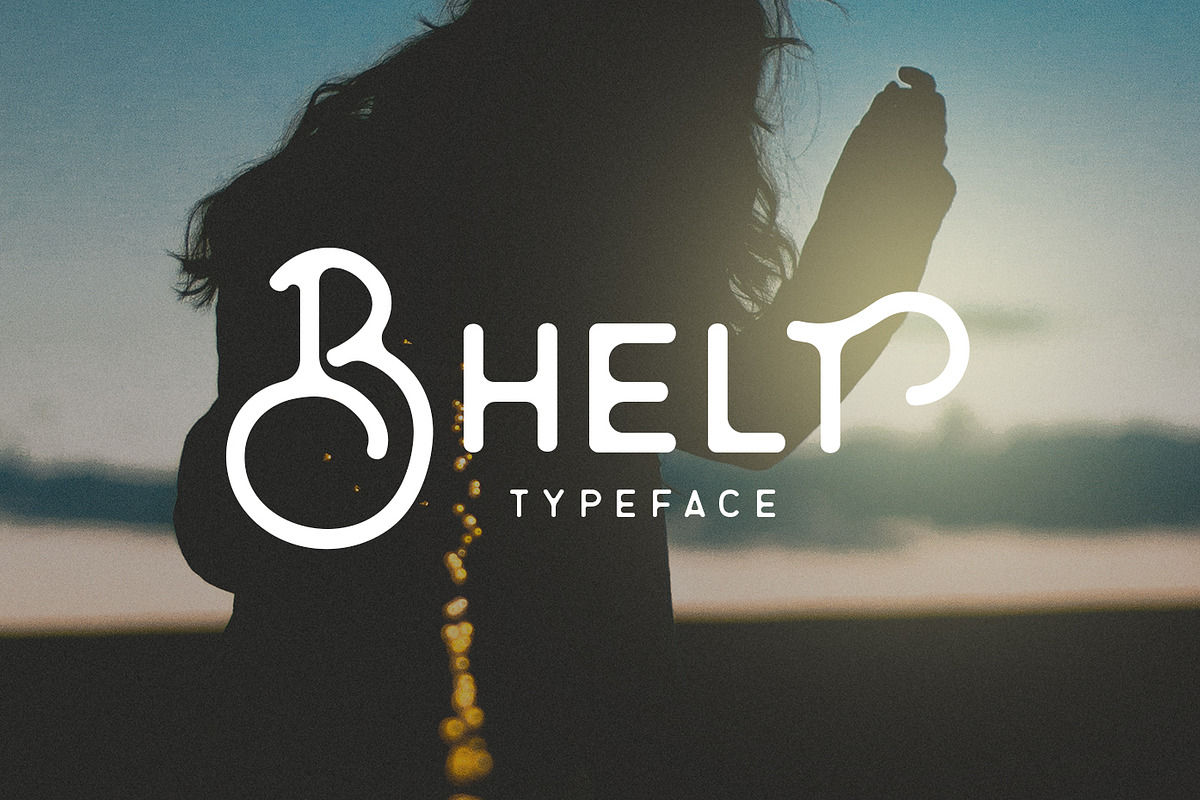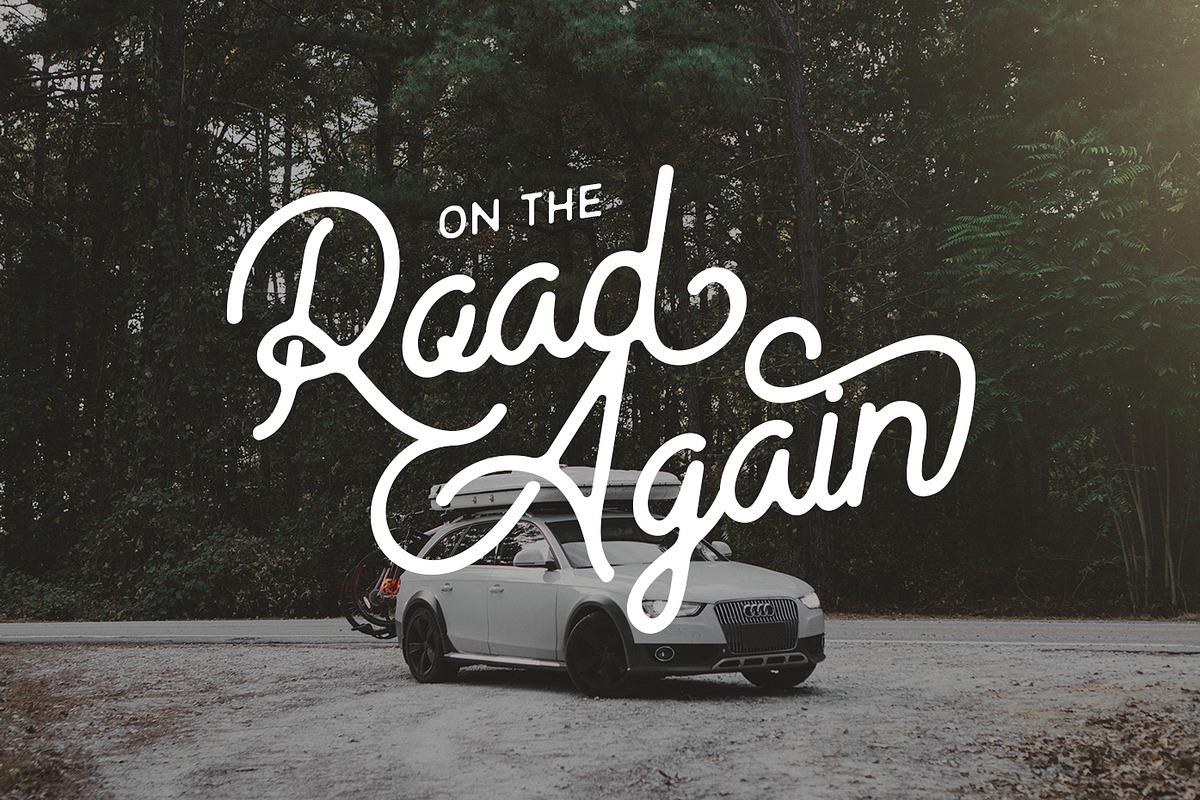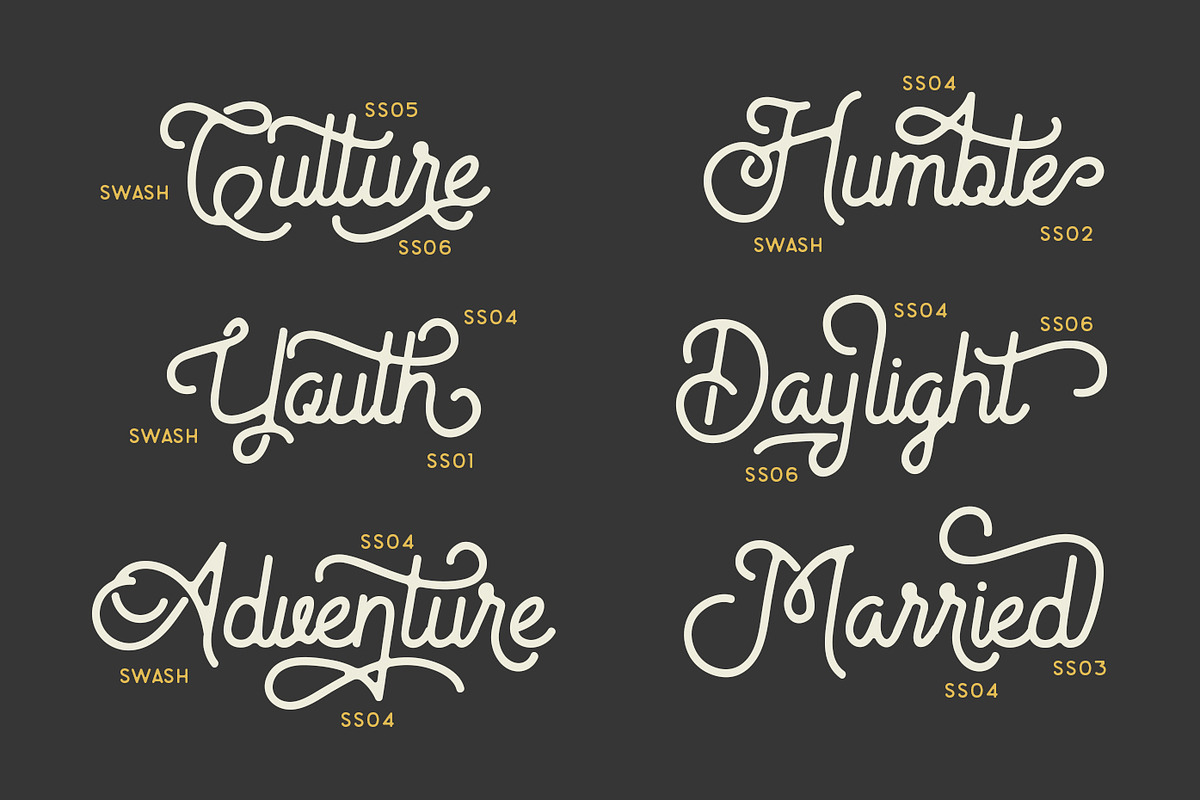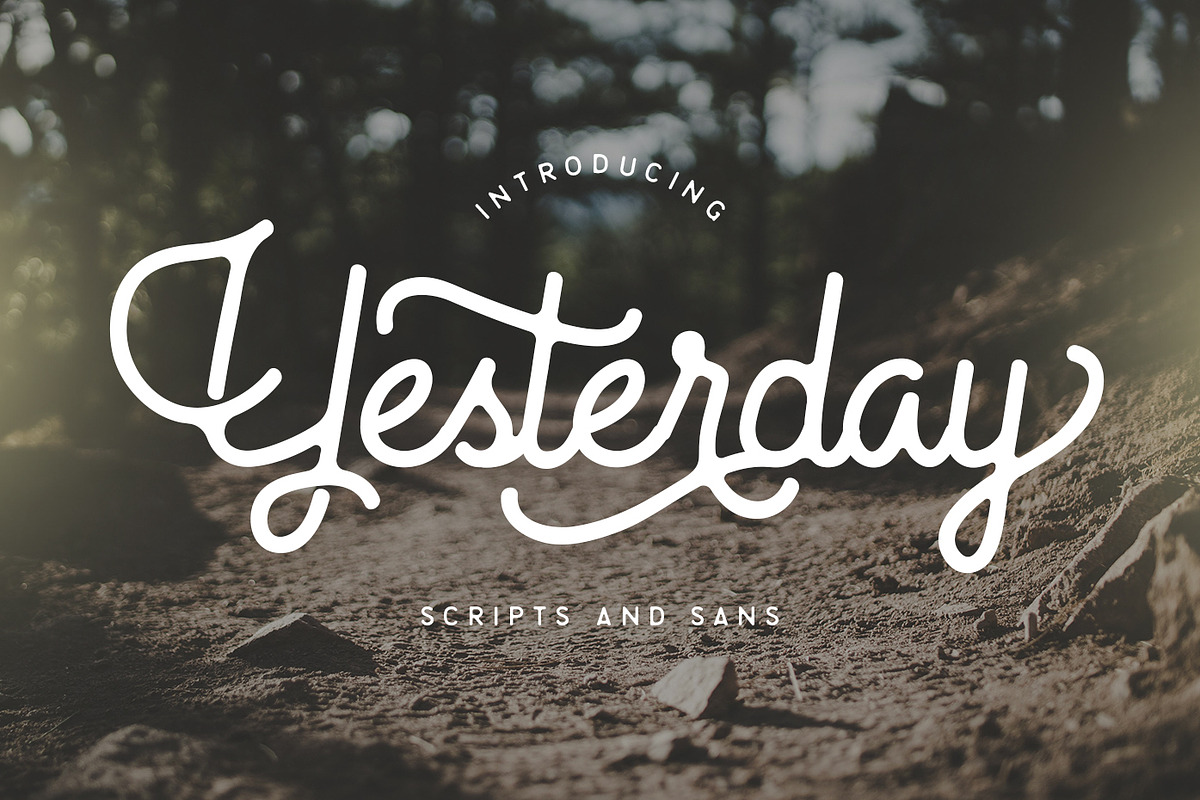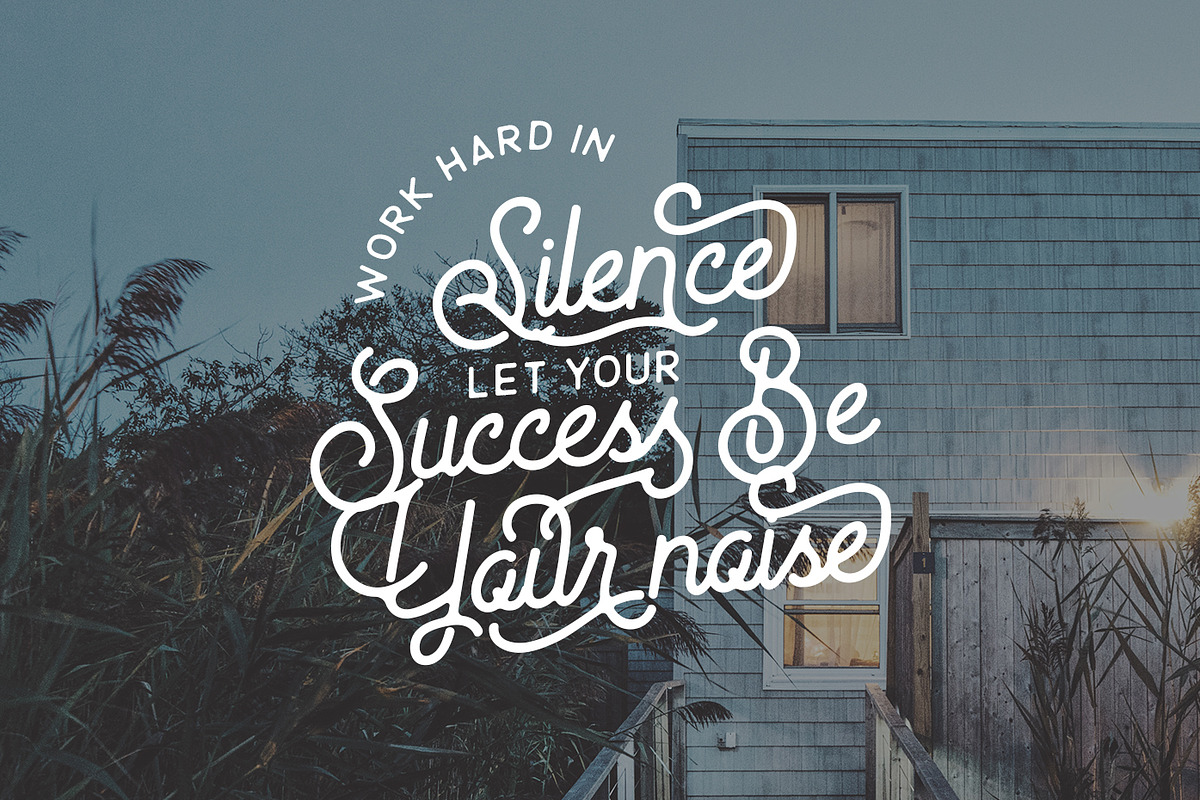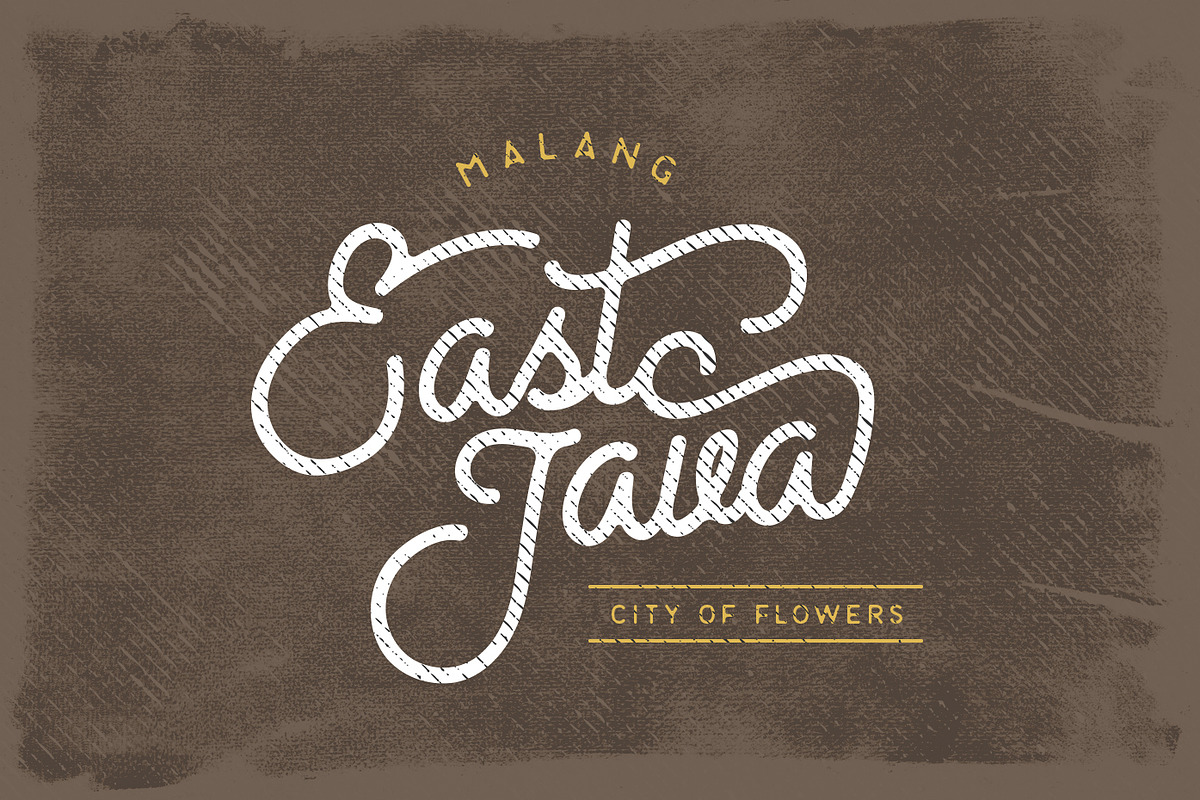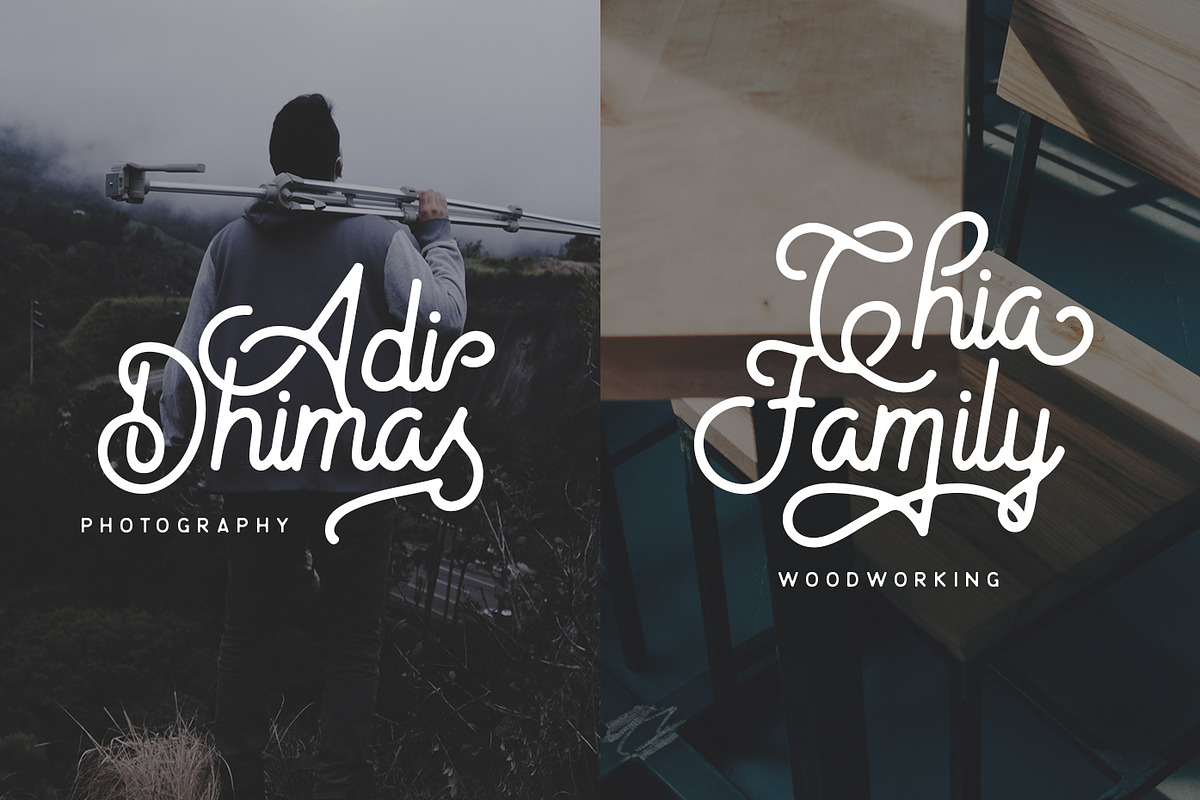
Yesterday Typeface
Yesterday Typeface by Angkalimabelas is a font selected for branding, posters, packaging, typography.
- You can applied to all typography with mix and match pairs of letters to fit your own designs or make some your best/favourite quotes to you
Why Yesterday Typeface is worth a look
Yesterday Typeface by Angkalimabelas fits naturally into Branding, posters, packaging, typography.